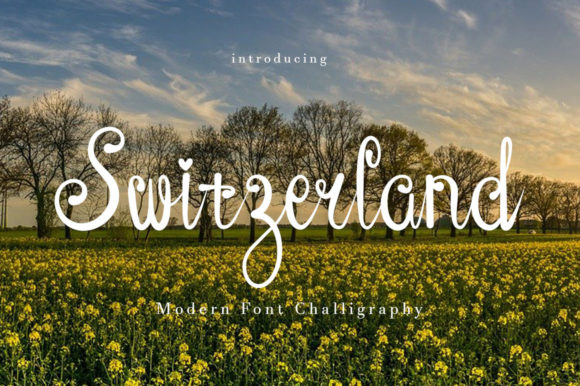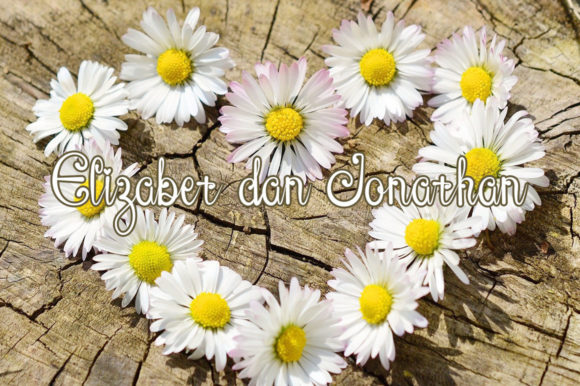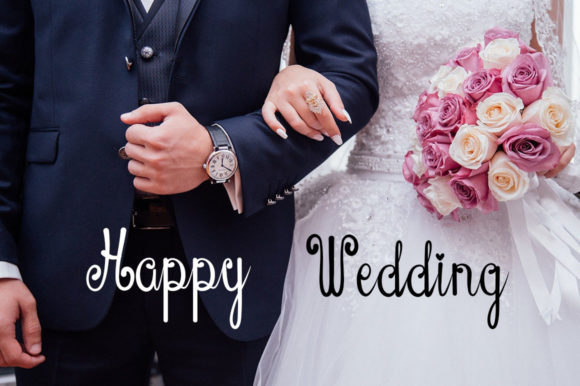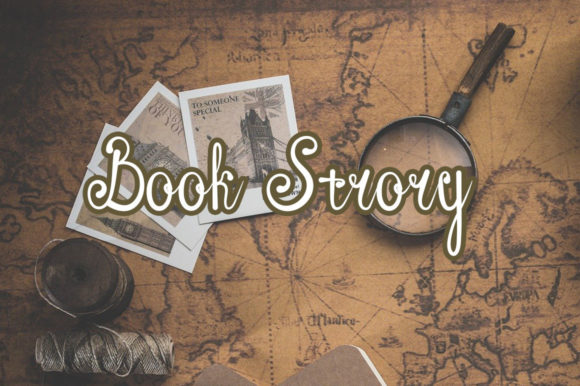
Switzerland Font
About Switzerland Font
Switzerland is a romantic and sweet handwritten typeface with characters that dance along the baseline. It will add a luxury spark to any design project that you wish to create!